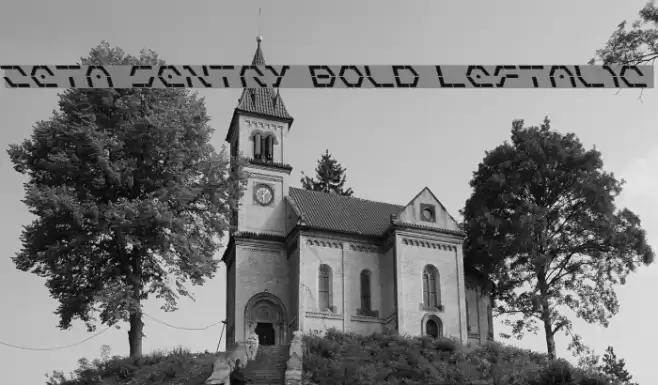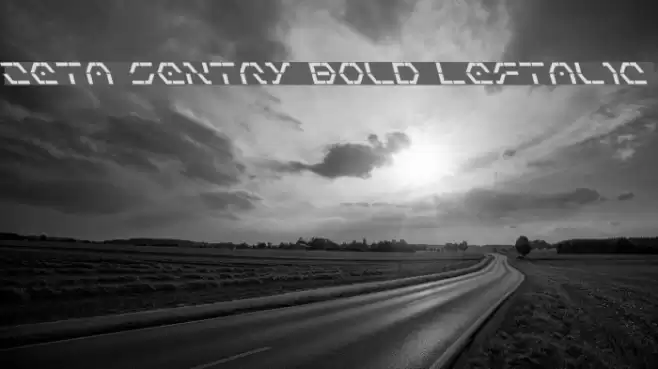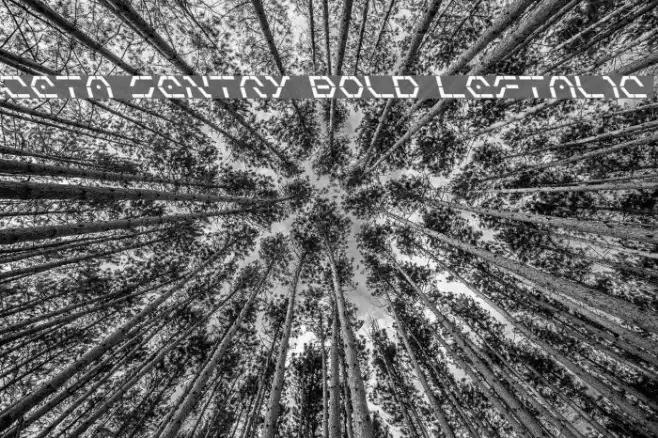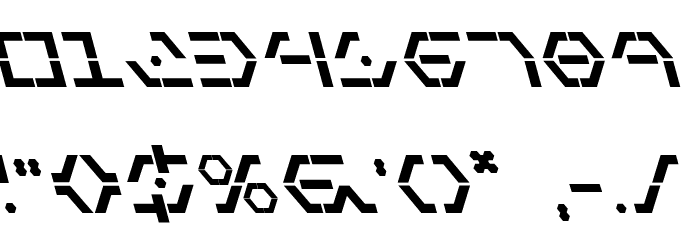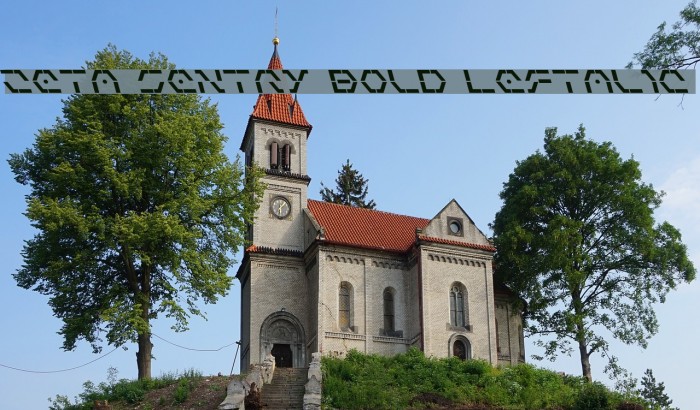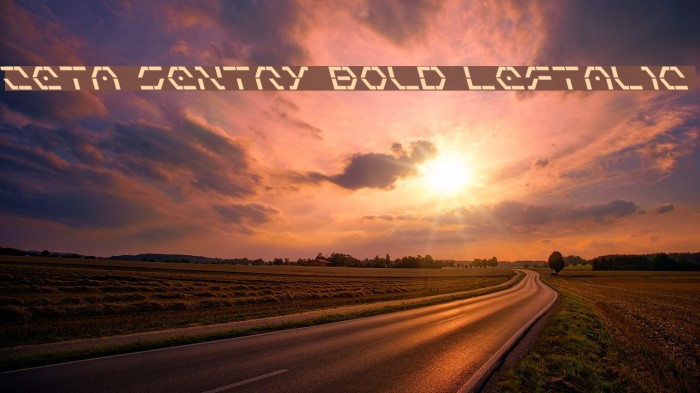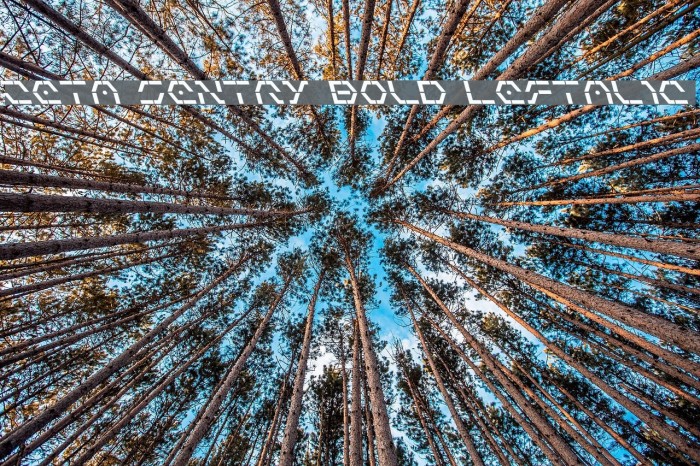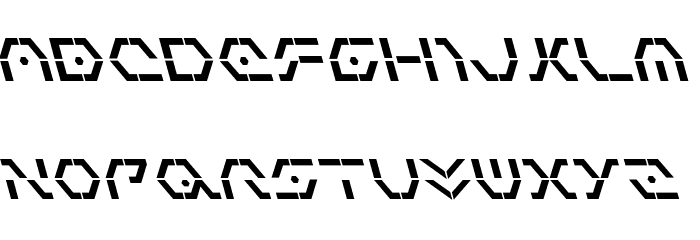
Zeta Sentry Bold Leftalic Font
Zeta Sentry Bold Leftalic Description
This font features a futuristic and geometric design, characterized by its bold and angular letterforms. The characters are constructed with a series of sharp, straight lines and edges, giving it a distinctly modern and digital appearance. The font maintains a consistent thickness throughout each character, contributing to its bold presence. The spacing between characters is relatively tight, enhancing its compact and cohesive look. This style is particularly suitable for projects that require a tech-savvy or avant-garde aesthetic, making it ideal for use in digital media, gaming interfaces, or sci-fi themed designs.
A bold, geometric font with a futuristic and digital aesthetic from Sci-fi fonts.
- Proposed Projects: Ideal for digital media, gaming interfaces, sci-fi themed designs, and tech branding.
- Character Spacing: Tight
- Use Case: Logos, Headlines